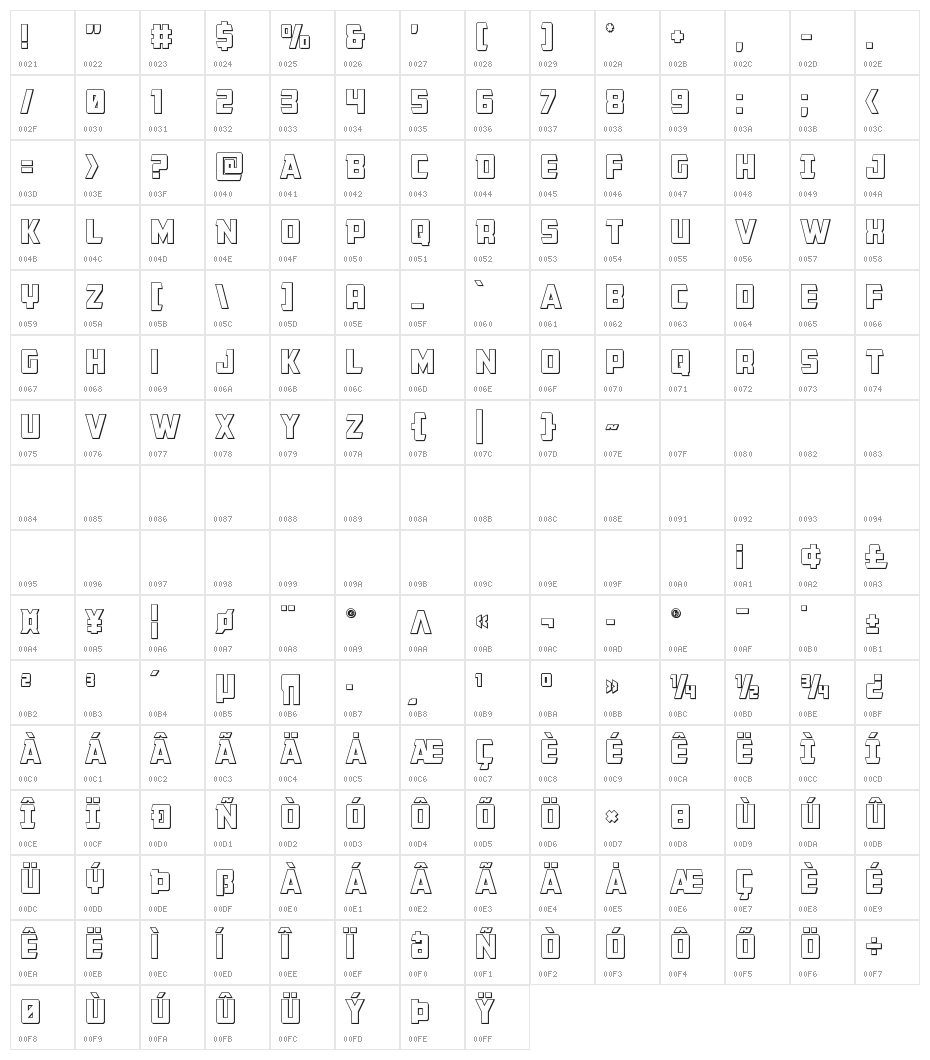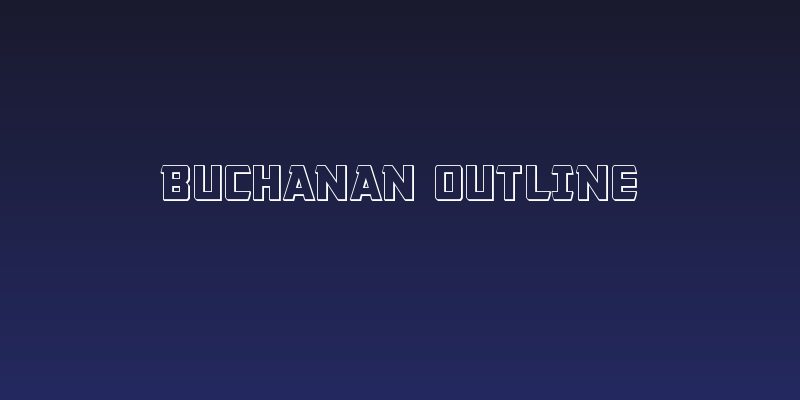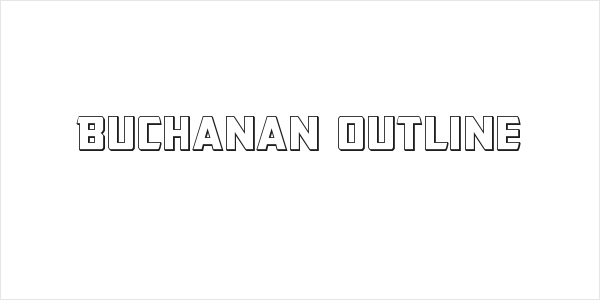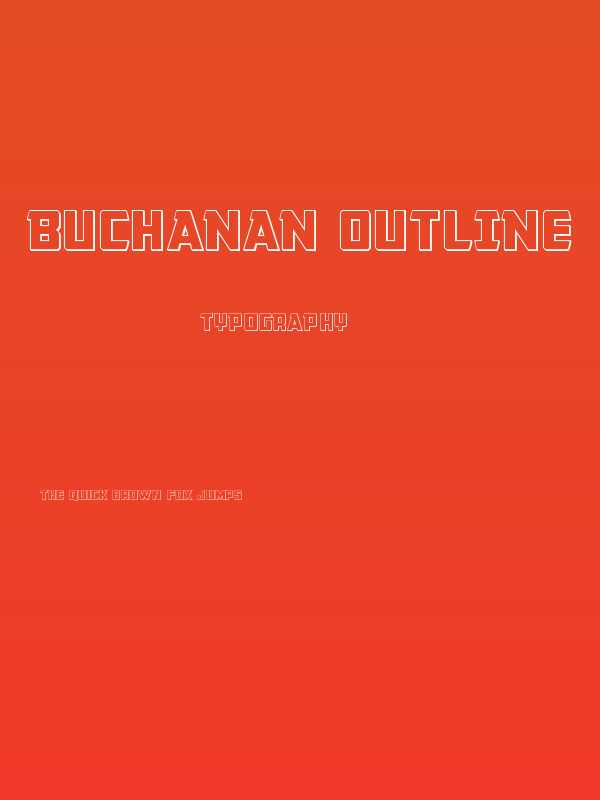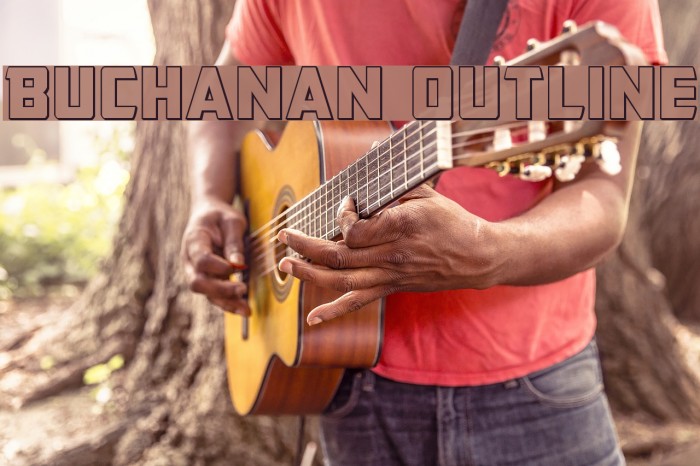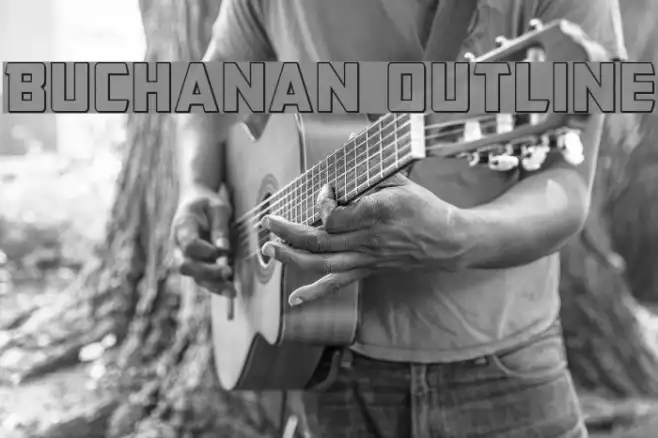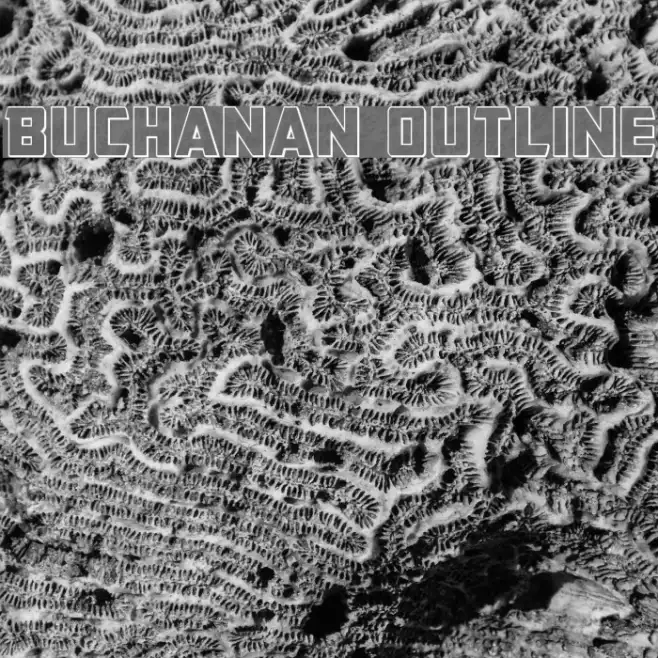
Buchanan Outline Font
Buchanan Outline Description
This font features a bold, outlined style that gives it a striking and modern appearance. The characters are uppercase and have a geometric, block-like structure with sharp angles and clean lines. The outline effect creates a sense of depth and dimension, making it ideal for attention-grabbing designs. The spacing between characters is consistent, allowing for easy readability. This font is versatile and can be used in various design projects where a bold statement is needed.
| Proposed Projects | Ideal for posters, headlines, logos, and branding materials where a strong visual impact is desired. |